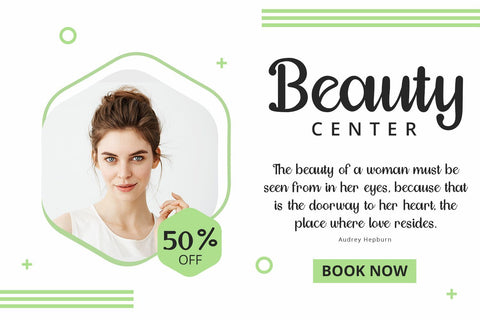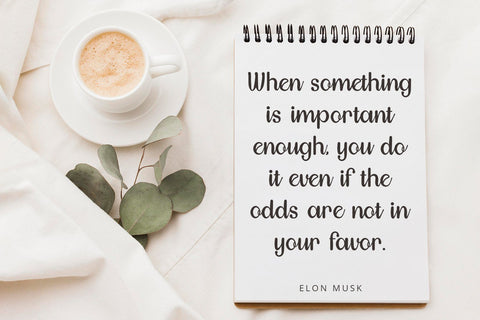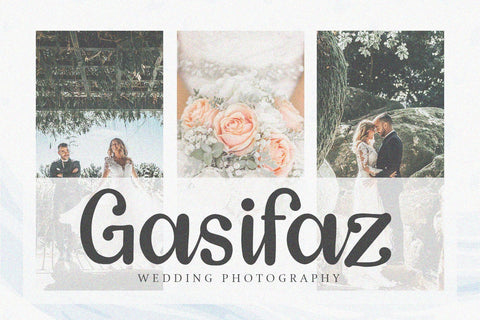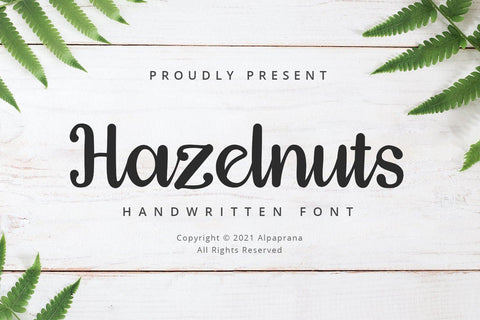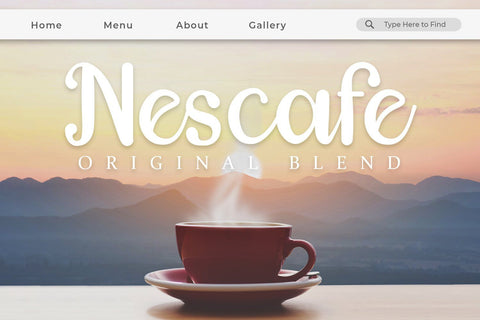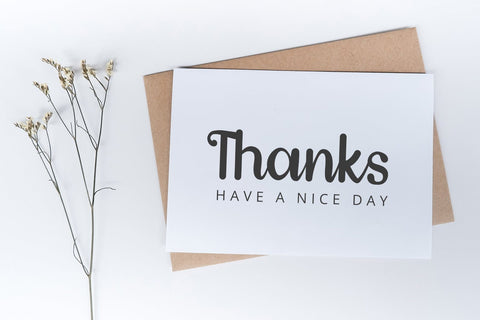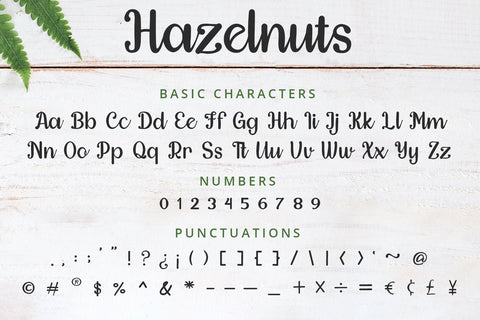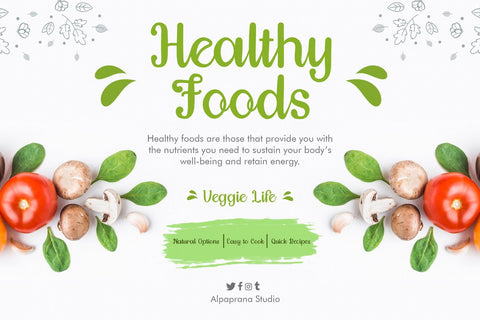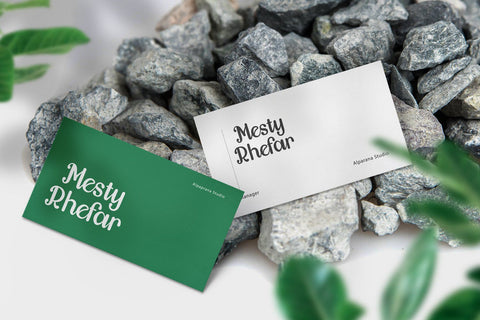
Hazelnuts - Handwritten Font
Hazelnuts is a luxury handwritten font with authentic and casual feels. It will be perfectly used for Branding, Logo Design, Lettering, Logotype, Clothing, Poster, magazine, packaging, posters, shopping bags, t-shirts, book covers, photography, special events and other design project.